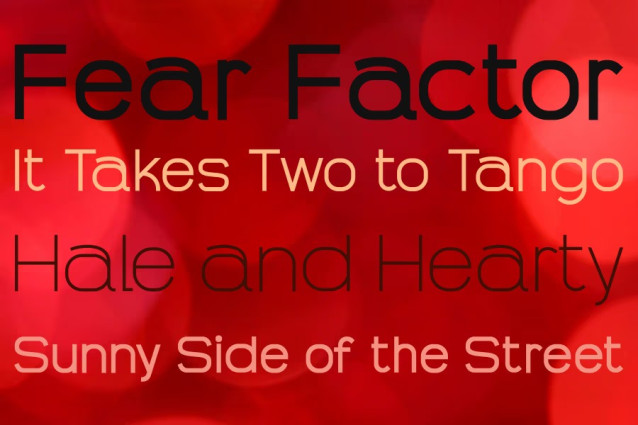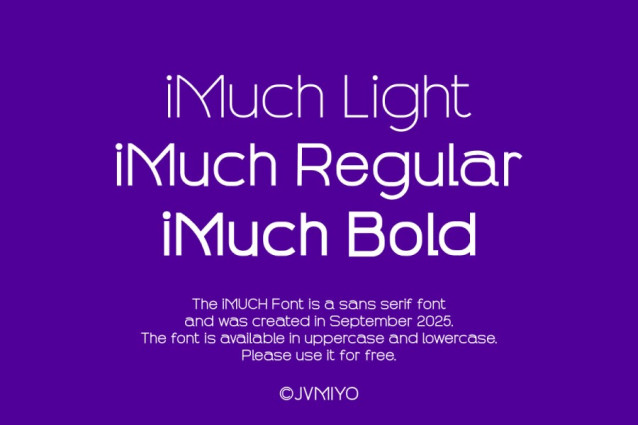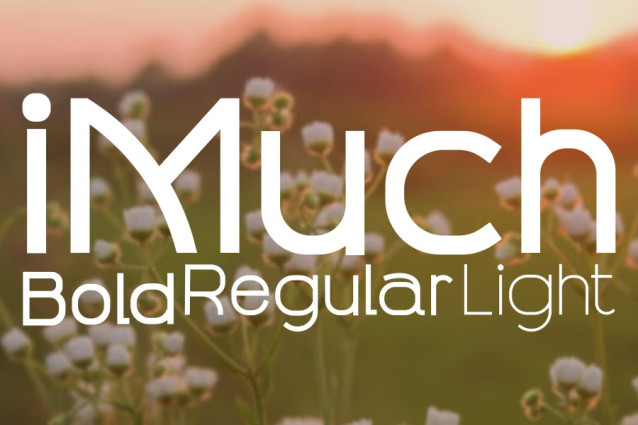
iMuch Font is a sans serif font and was created in September 2025. It would be a perfect choice to design posters, affiches, logos, t-shirt and magazine prints, eye-pleasing typographic designs and more.
The font is available in uppercase and lowercase.
iMuch Font